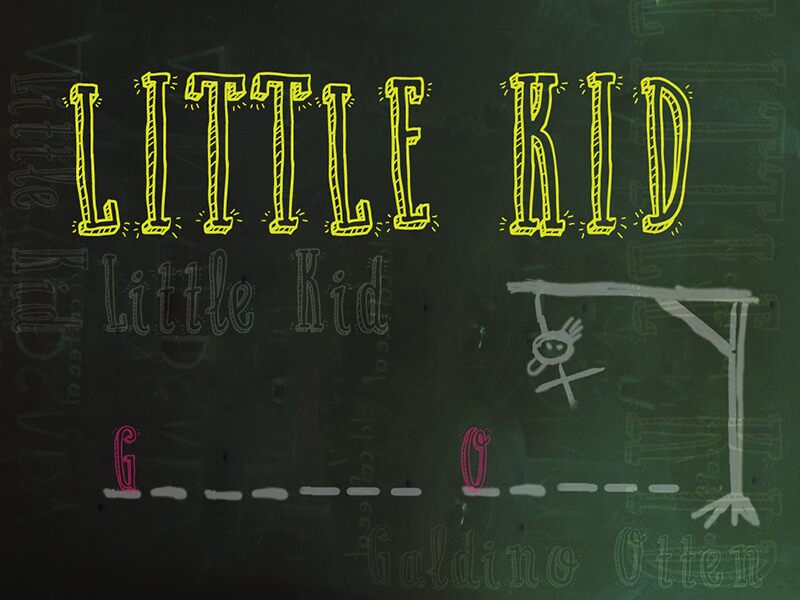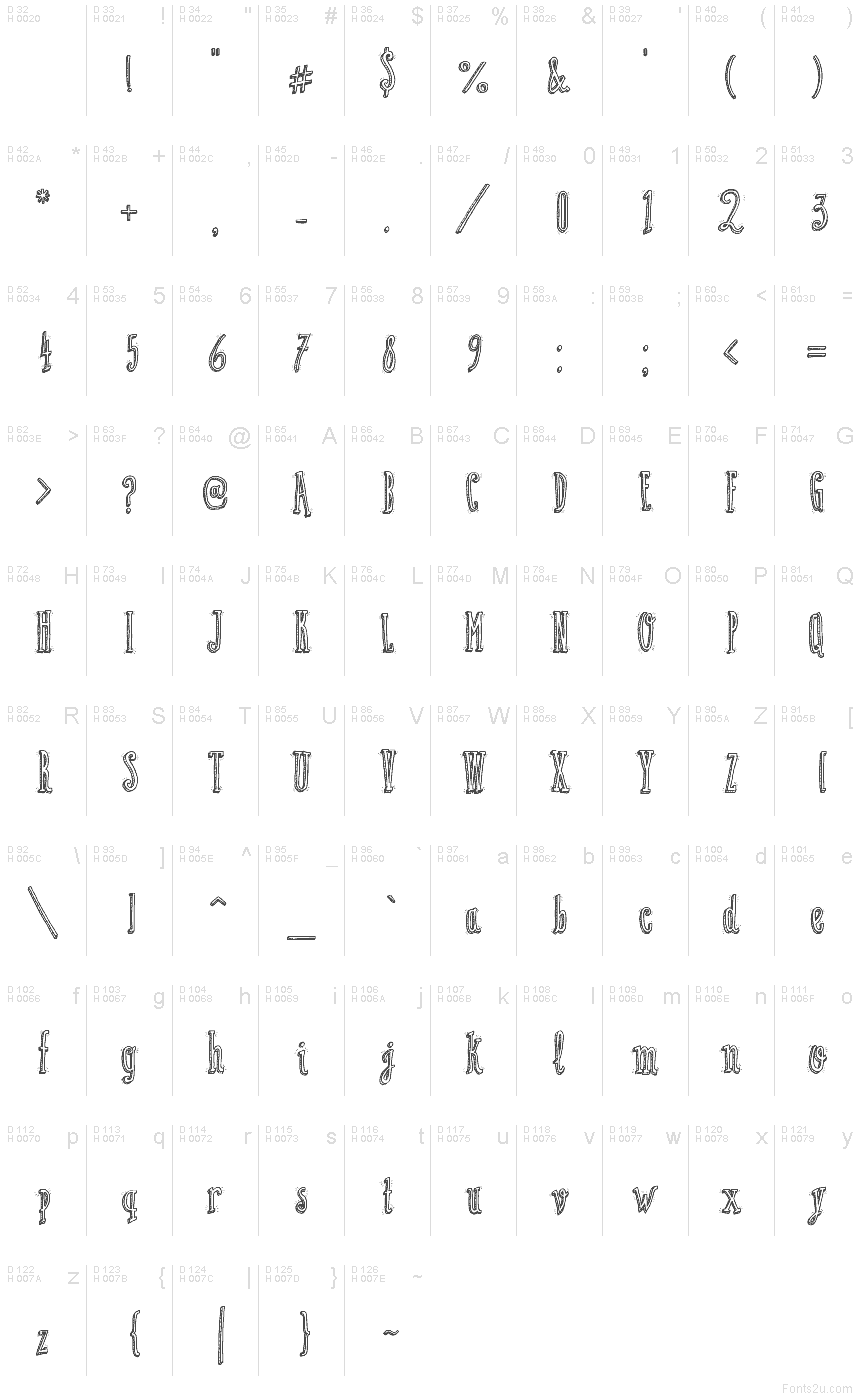
Little Kid
Little Kid font by Galdino Otten Fonts is a cartoon display font with an informal, whimsical style. Condensed in width, it uses textured details to achieve a unique hand-drawn appearance. The resulting letters look inviting and friendly while the eccentric nature is guaranteed to grab attention immediately.